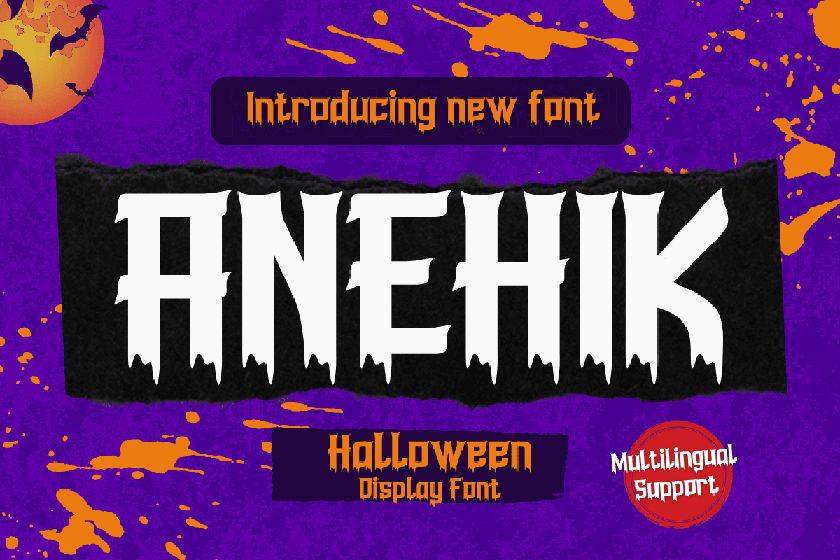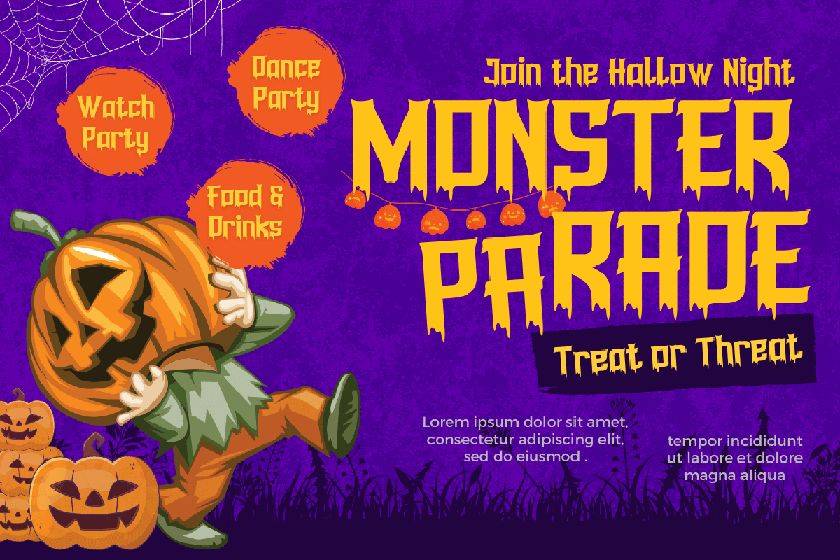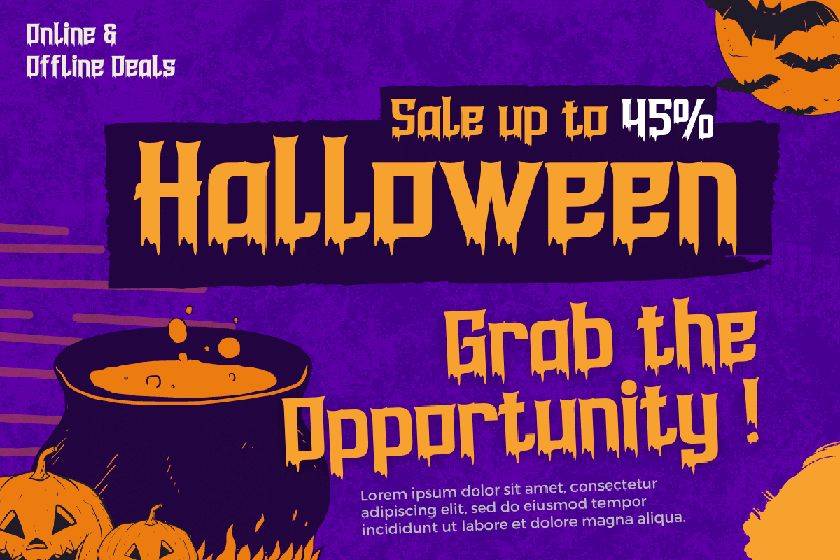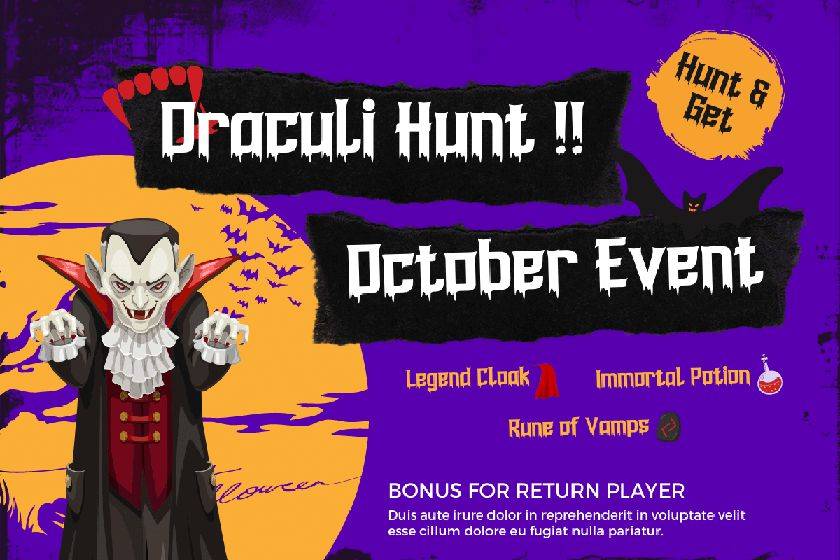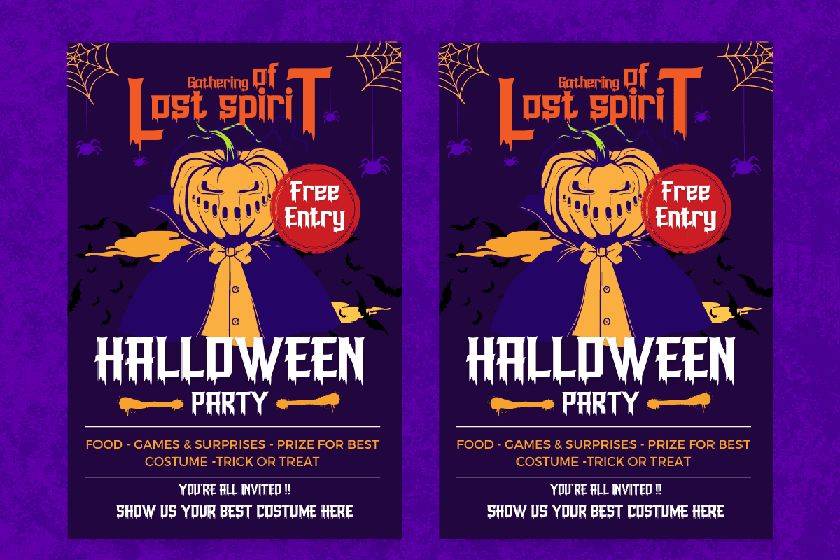
Anehik is a bold, condensed sans serif font with a unique horror-inspired style characterized by dripping, jagged edges that give it a dark, eerie personality. Its tall, narrow letterforms with sharp, irregular strokes create a strong visual impact that works perfectly for Halloween themes, posters, or branding that demands a spooky and dramatic effect. This font excels in headlines and display use where it can evoke a chilling mood and grab attention instantly.
Anehik Font
About Anehik Font